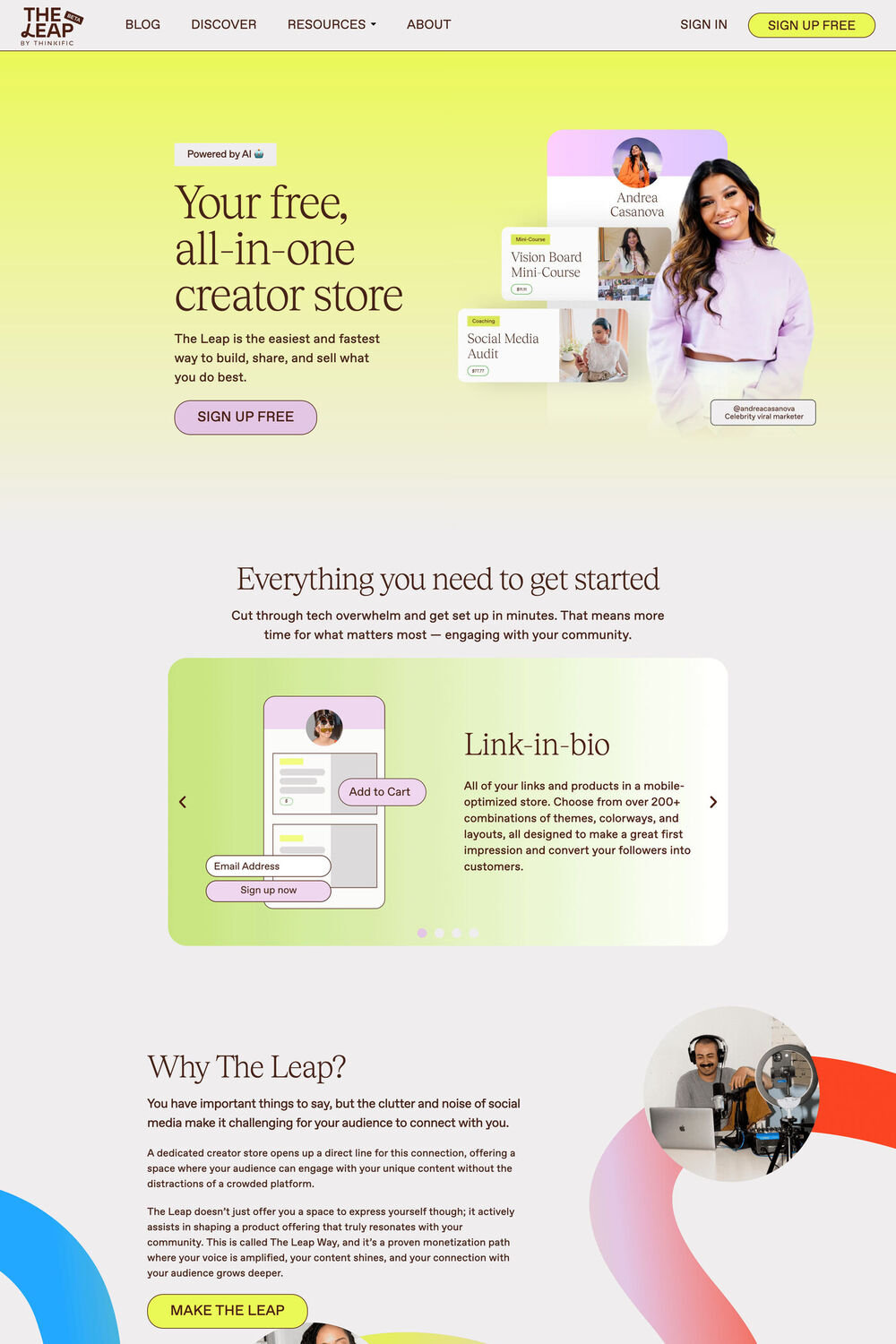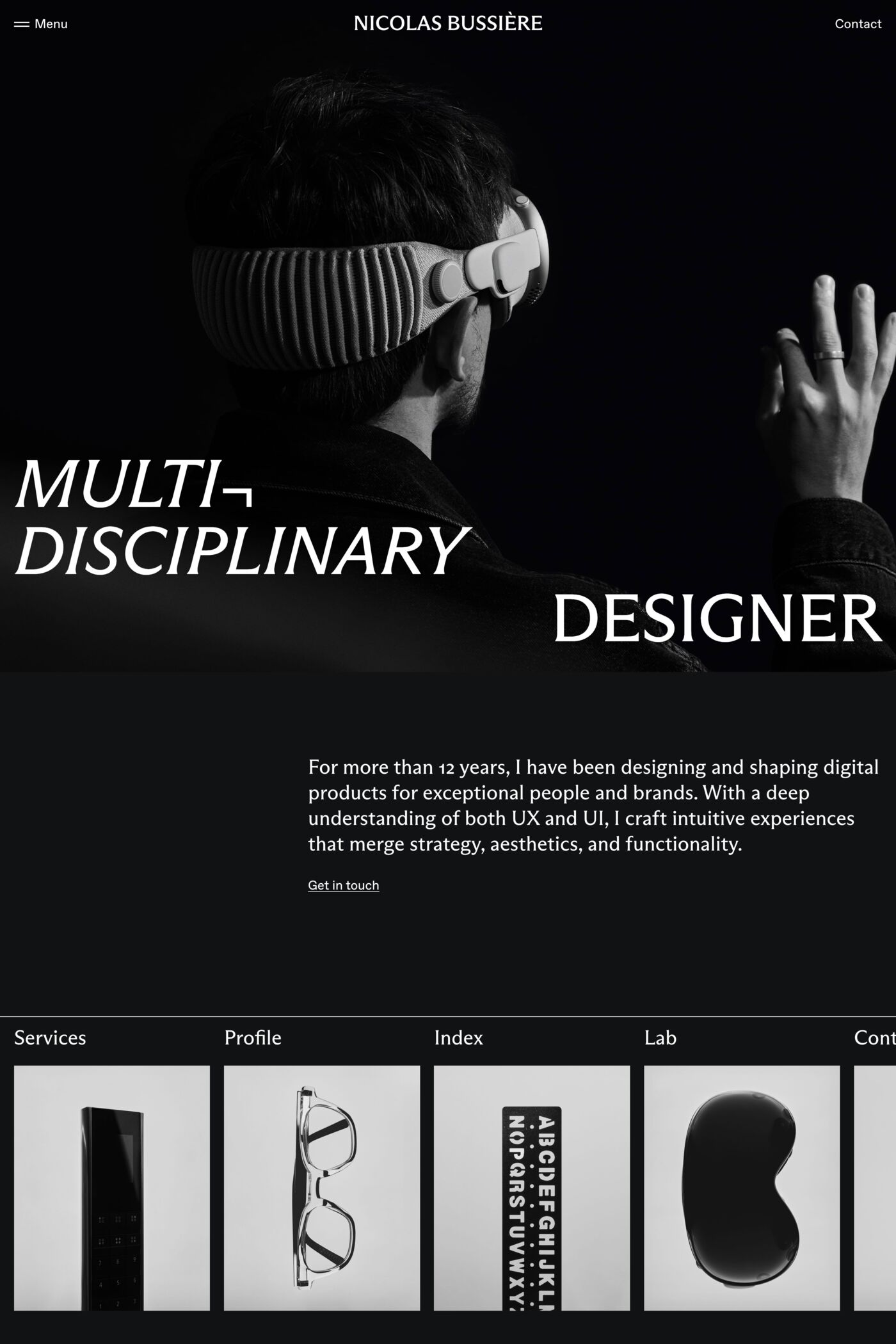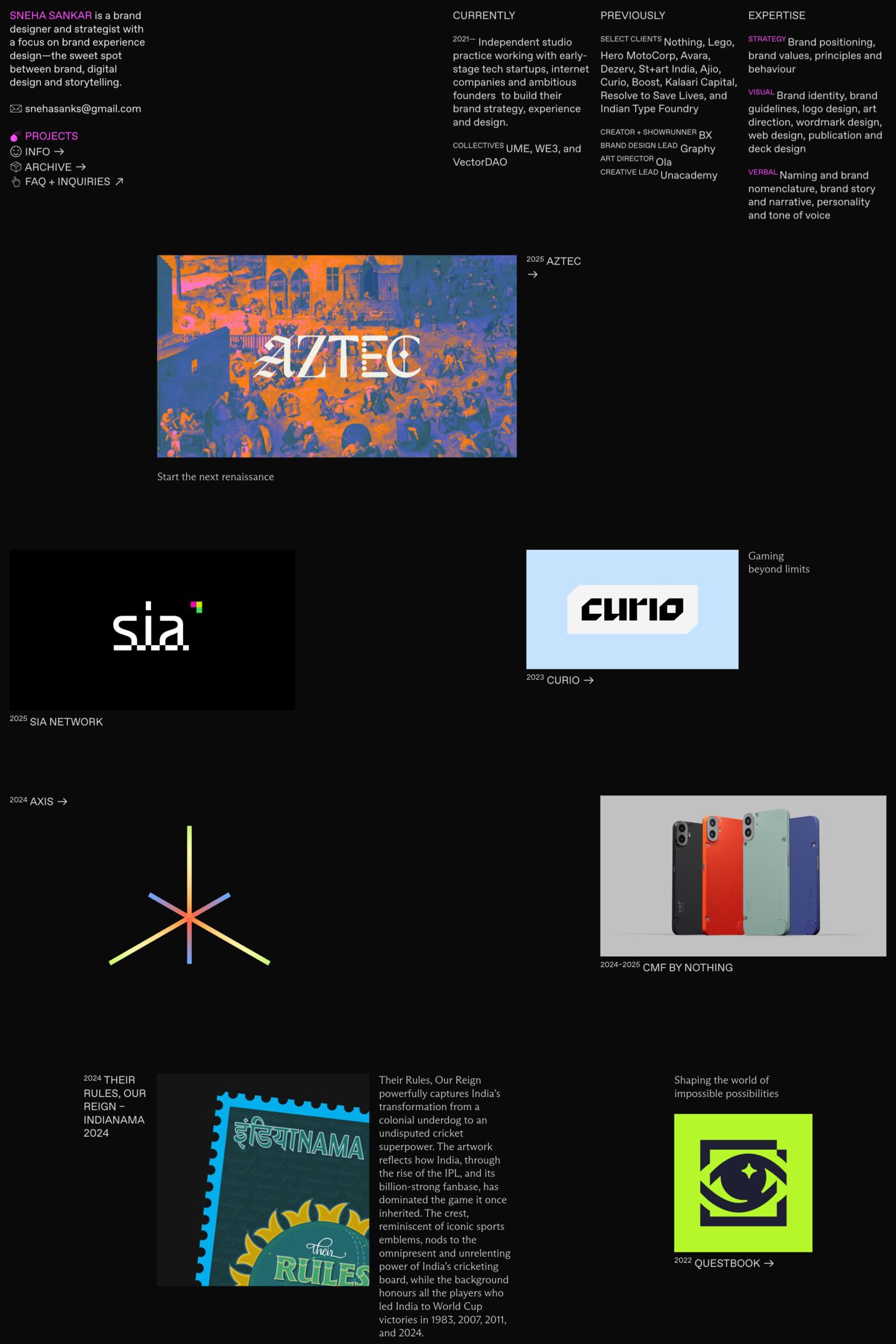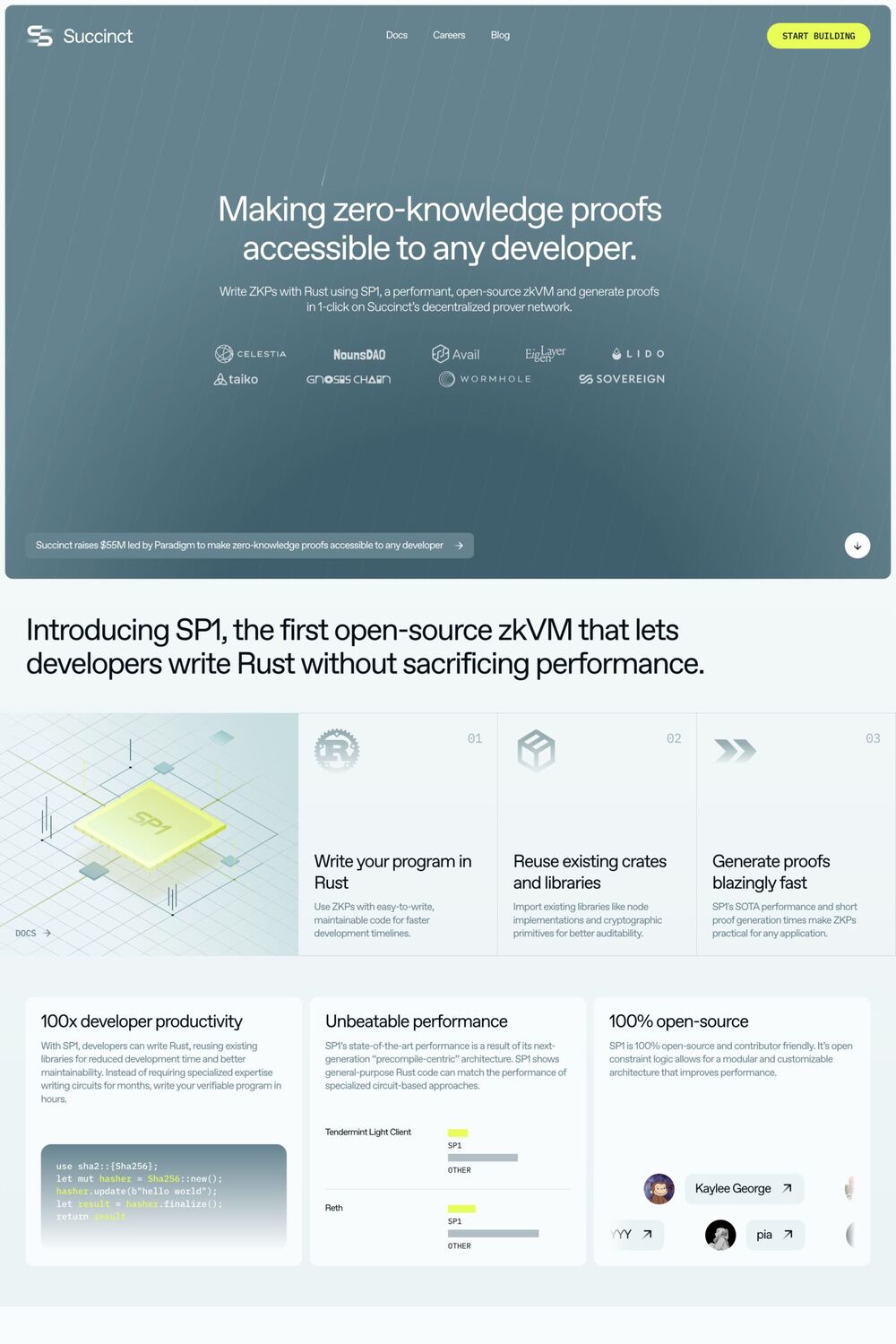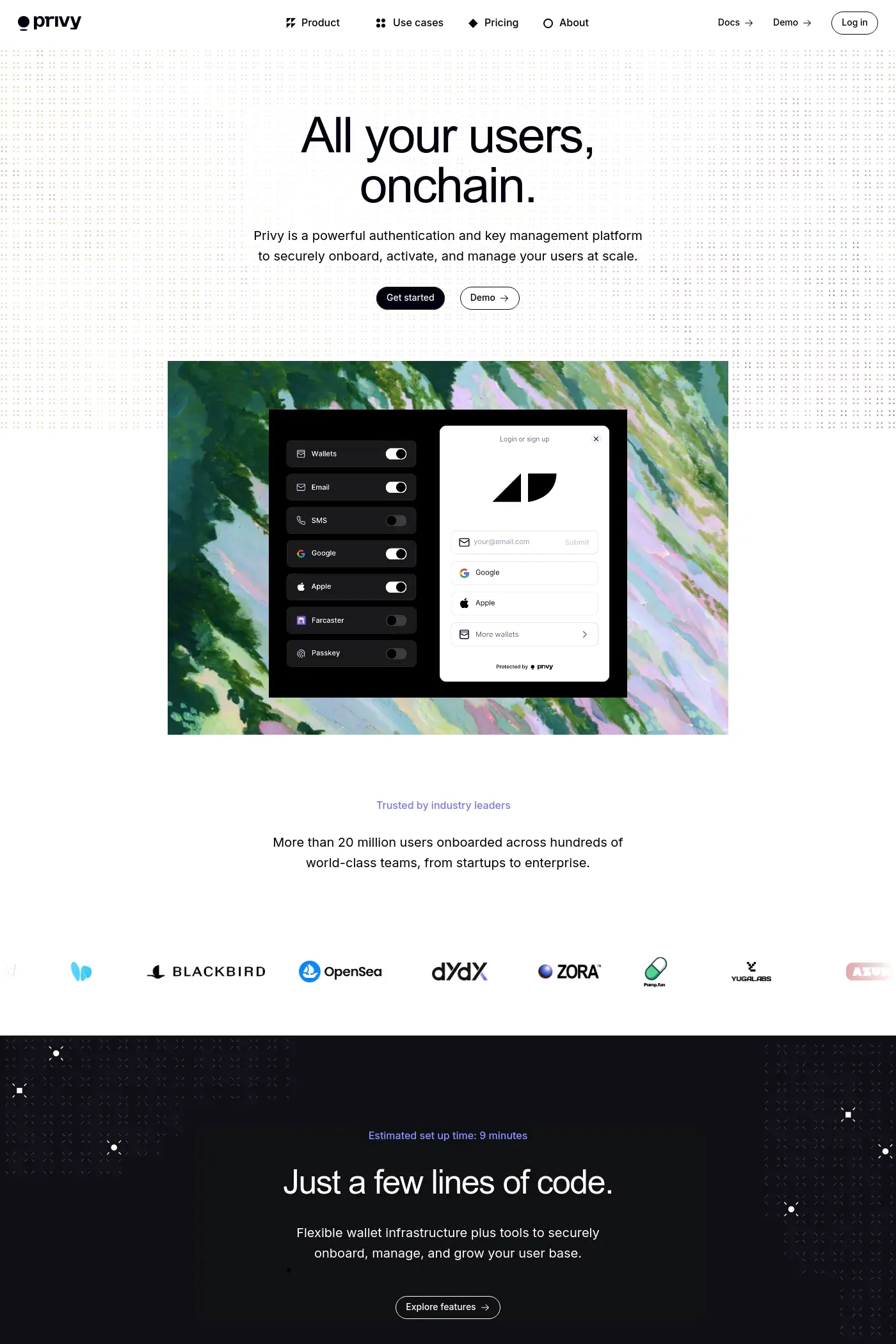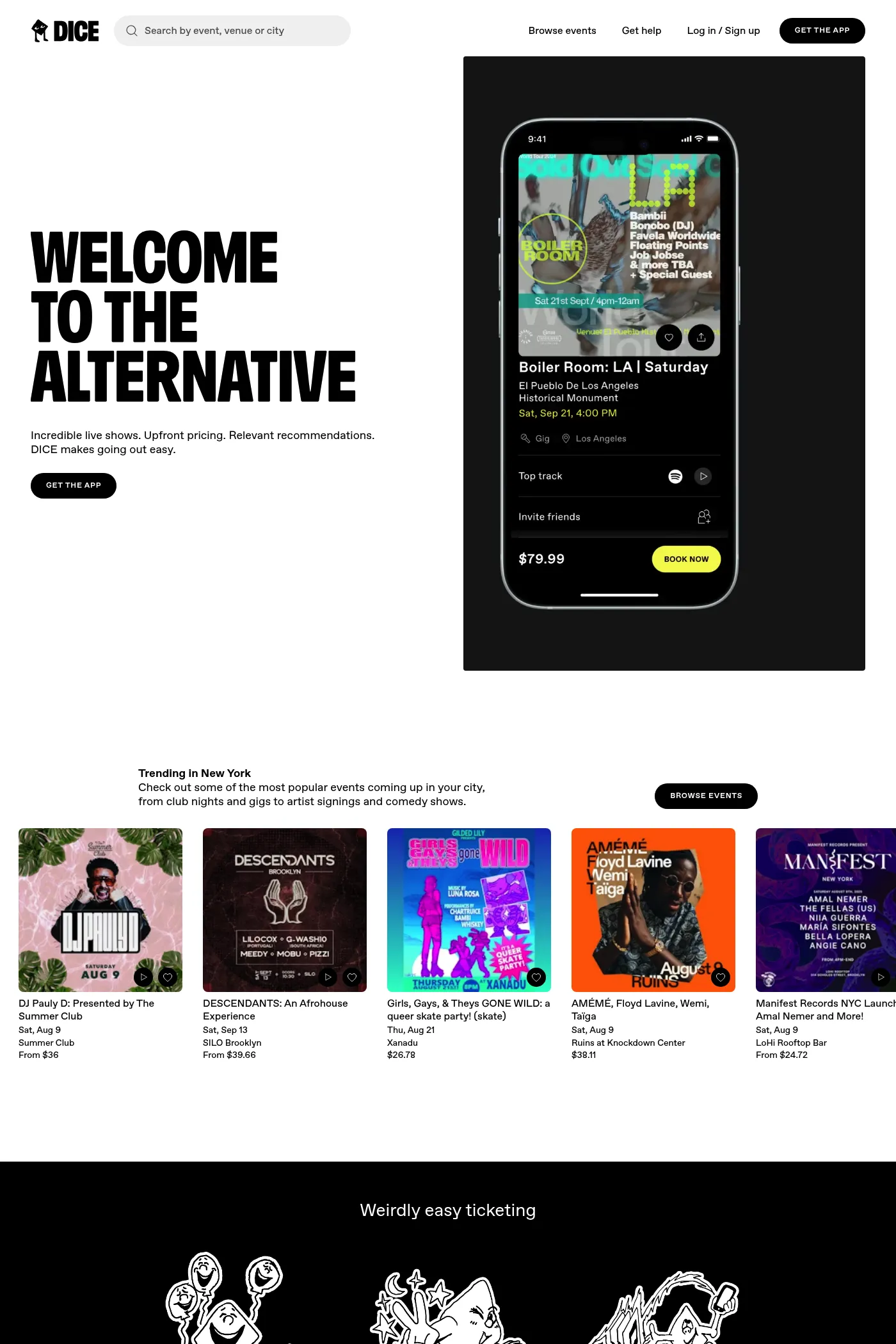
Favorit is a sans-serif typeface from Dinamo.
ABC Favorit is a straightforward, low-contrast grotesque that combines geometric rigidity with subtle oddities and a humorous touch. It’s available in five weights with corresponding italics, as well as a few special cuts and an underlined version, Favorit Lining. Additionally, there are the sub-families ABC Favorit Extended, ABC Favorit Expanded and the mono-spaced version ABC Favorit Mono.
A1 features 12 websites using Favorit, including Privy, Prime Intellect, and Designer Fund. They lean towards Minimal, Display font, and Big type design styles, and they’re most often built with Next.js, Framer, and Webflow.